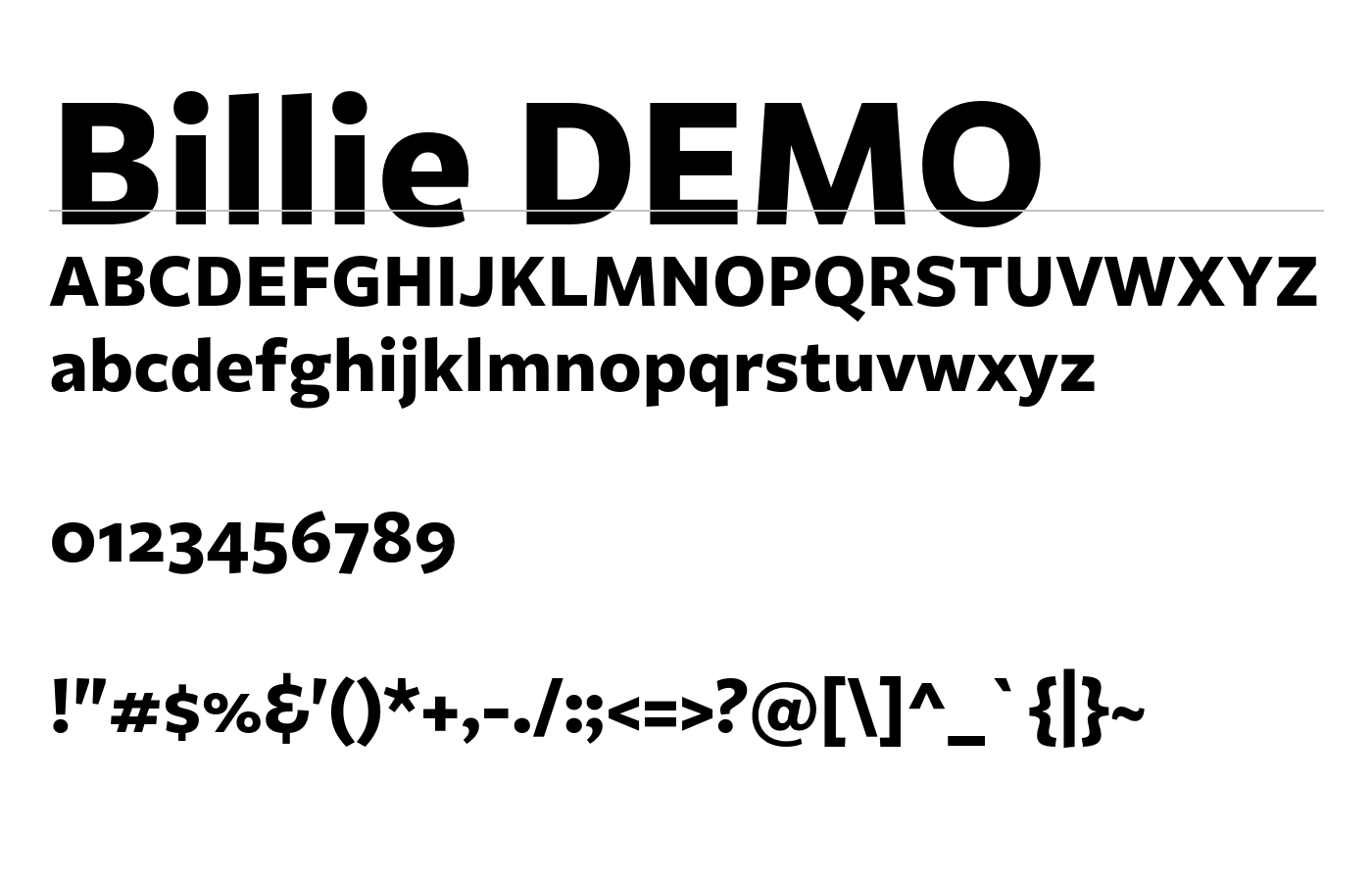
Billie DEMO is a bold, geometric sans serif font with a strong and modern presence. Its clean lines, high x-height, and uniform stroke weight make it highly legible and versatile, perfect for striking headlines, branding, and editorial design. This font conveys confidence and clarity, making it ideal for contemporary projects that need a straightforward yet impactful typographic voice.
Billie DEMO Font
About Billie DEMO Font
| Font family | Billie DEMO Font |
| Designer | Max Saille, Jason Harcombe |